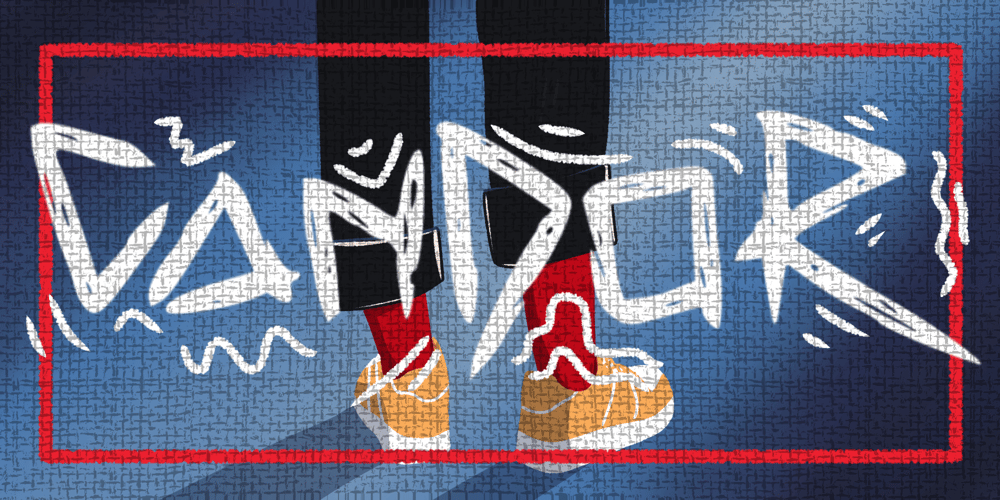
Candor
Candor font
Candor Font Family was designed by Zaizafun Hanifah and published by Daily Studio. Candor contains 1 styles and family package options. Candor is a typeface designed by Daily Studio. This font has over 200 glyphs with multilingual letters included. Perfect for gorgeous logos and titles. You can play with the letters and make your projects look marvelous. it will pair beautifully with many fonts.